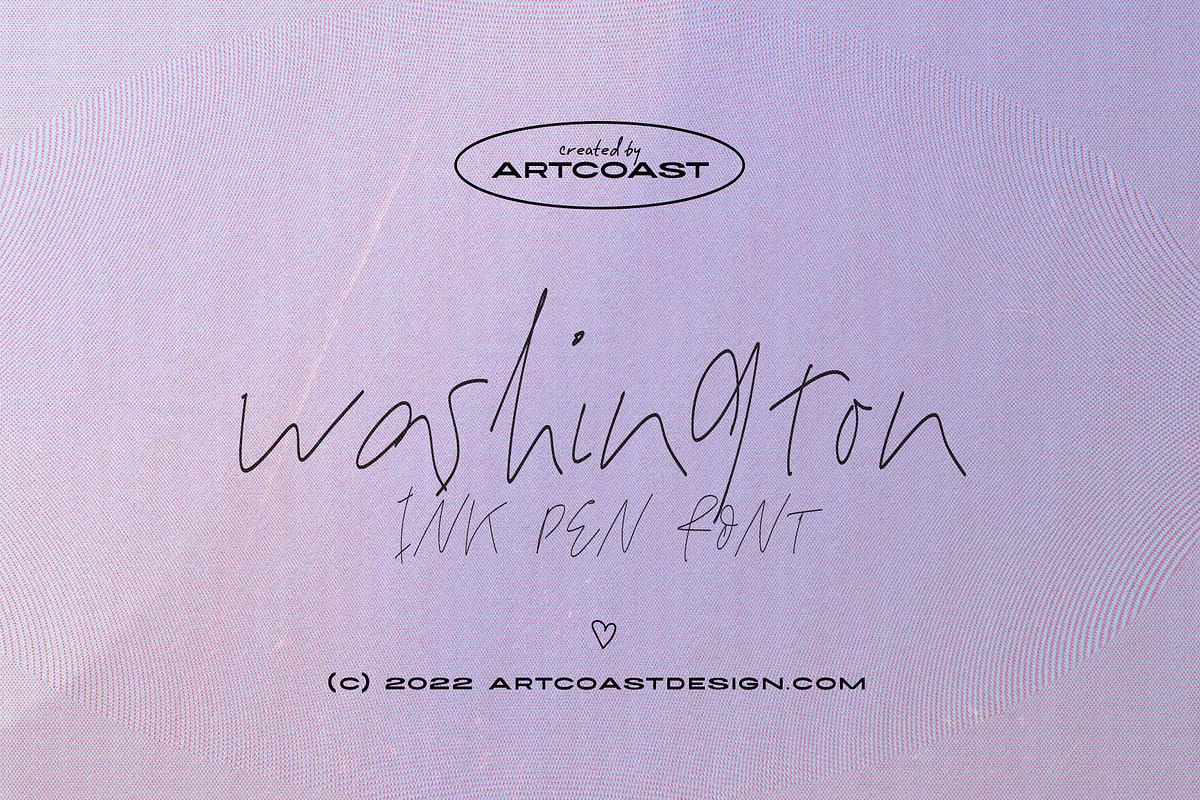
Please note that you must purchase this font for commercial use. You can download Washington Ink Pen Handwritten Font for free, strictly for personal testing purposes only. Washington Ink Pen is a stylish handwritten font that mimics the natural flow and texture of ink pen strokes. With its smooth, slightly imperfect curves and personal touch, Washington Ink Pen Handwritten Font Free Download is perfect for projects that require an authentic, handwritten aesthetic—such as logos, greeting cards, invitations, branding, and social media graphics.
The font’s organic, pen-drawn style makes it ideal for creating designs with a personal, artistic flair. It includes uppercase and lowercase letters, numerals, punctuation, and multilingual support, ensuring it works for a variety of creative needs.
Whether you’re crafting a bespoke logo or designing personalized stationery, Washington Ink Pen adds charm and authenticity to your typography.